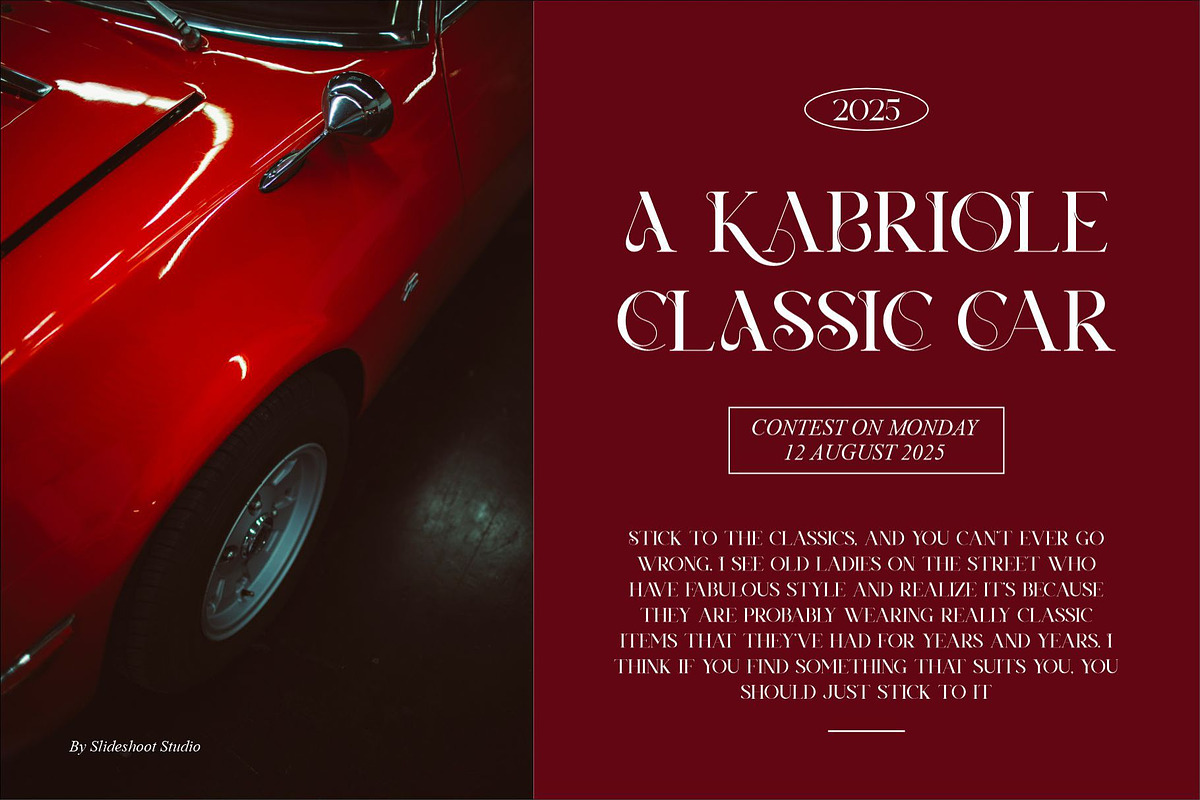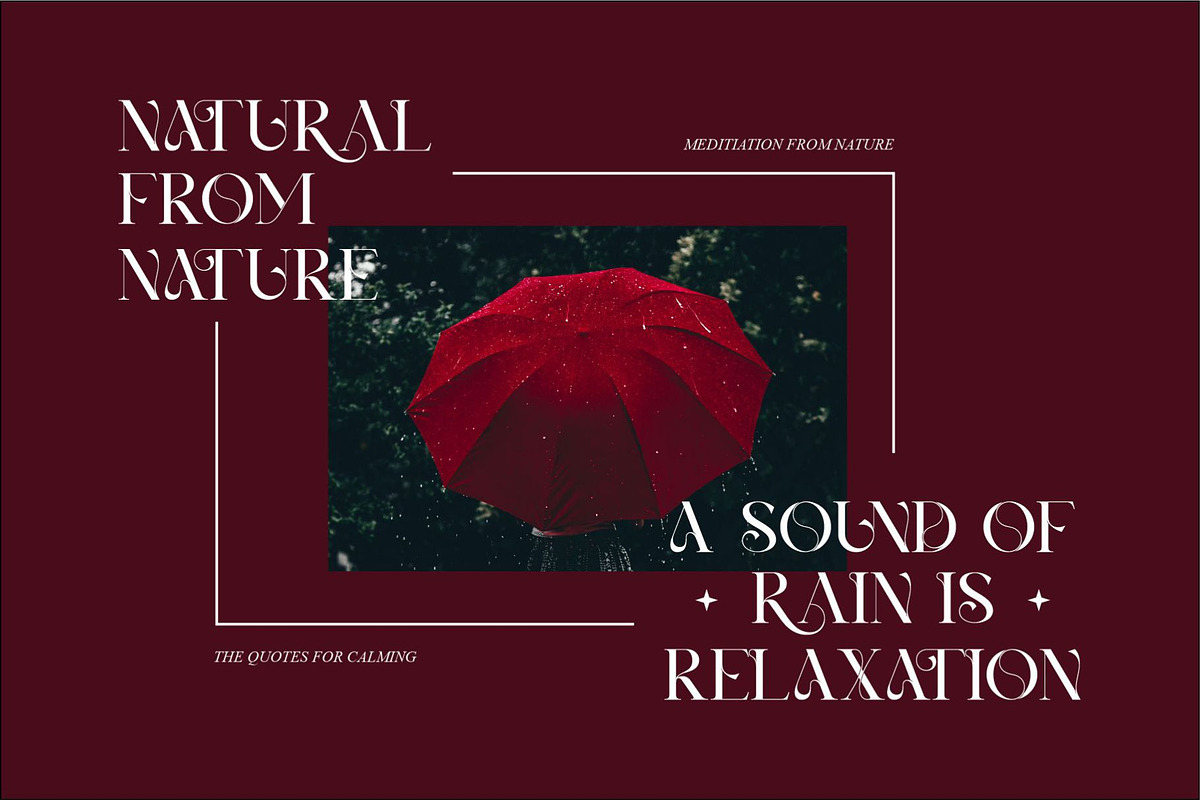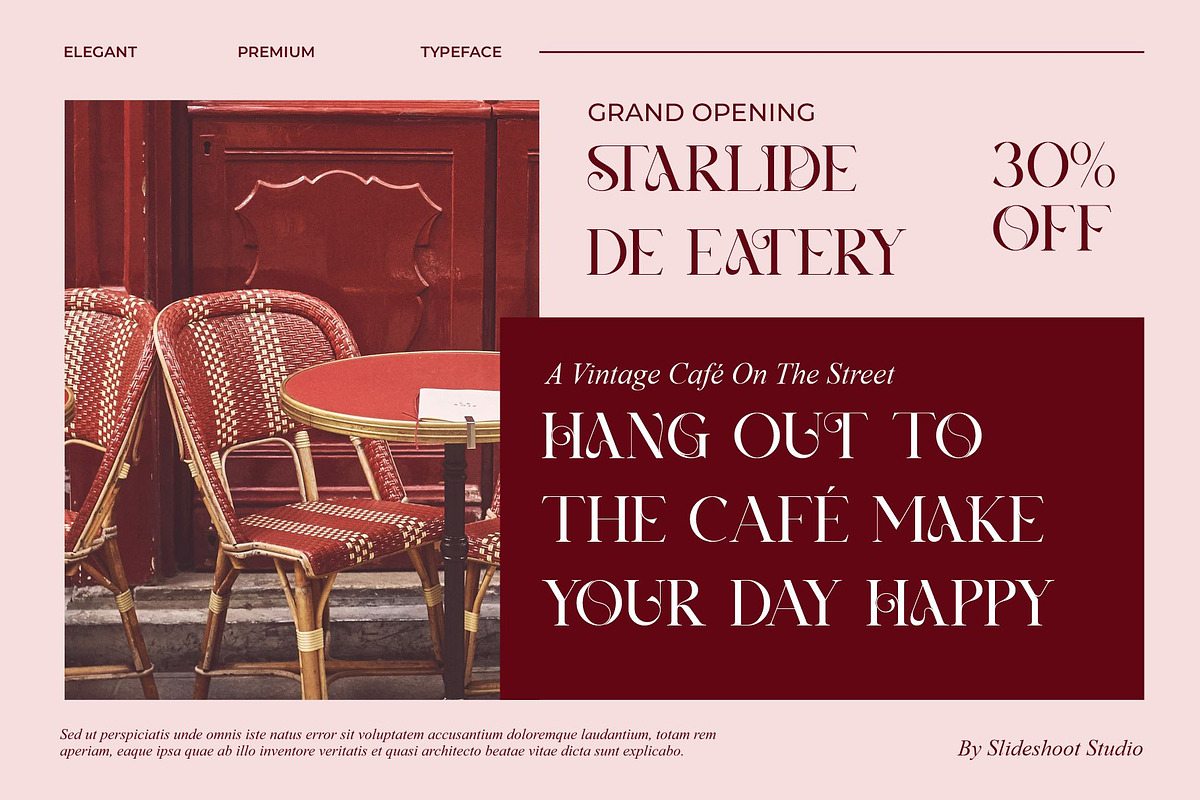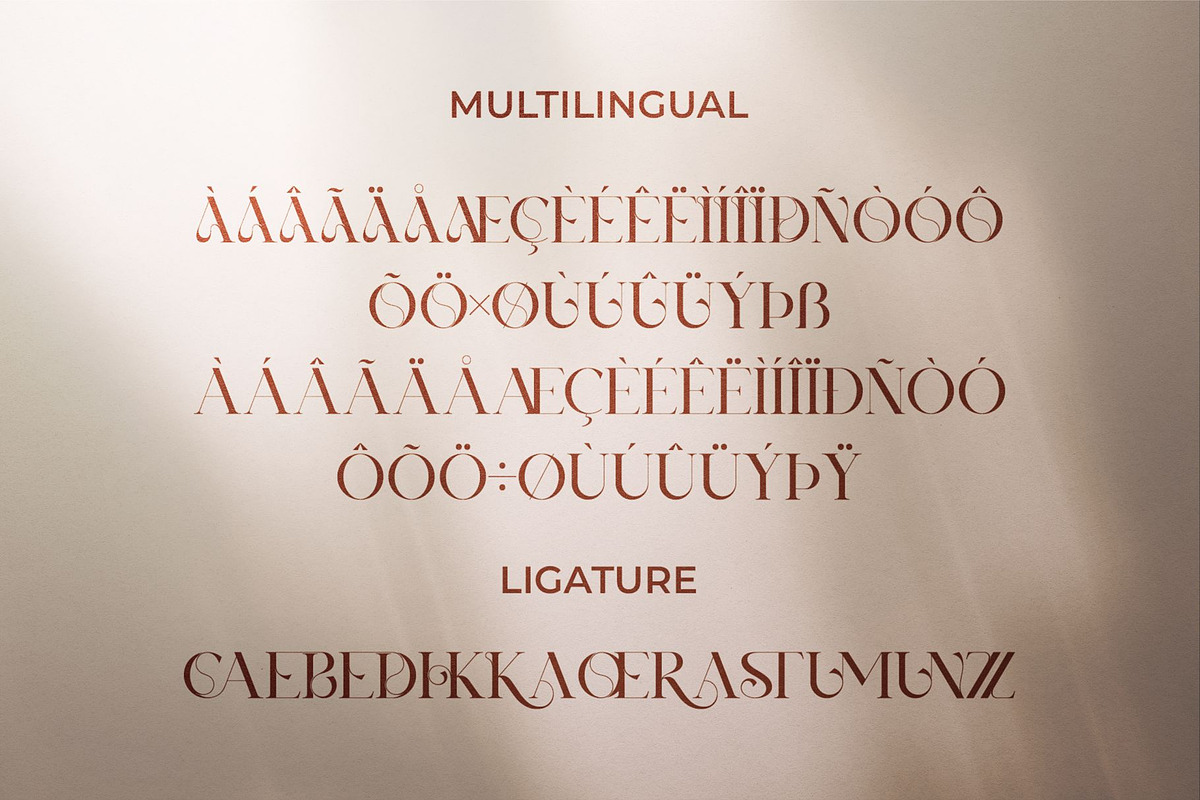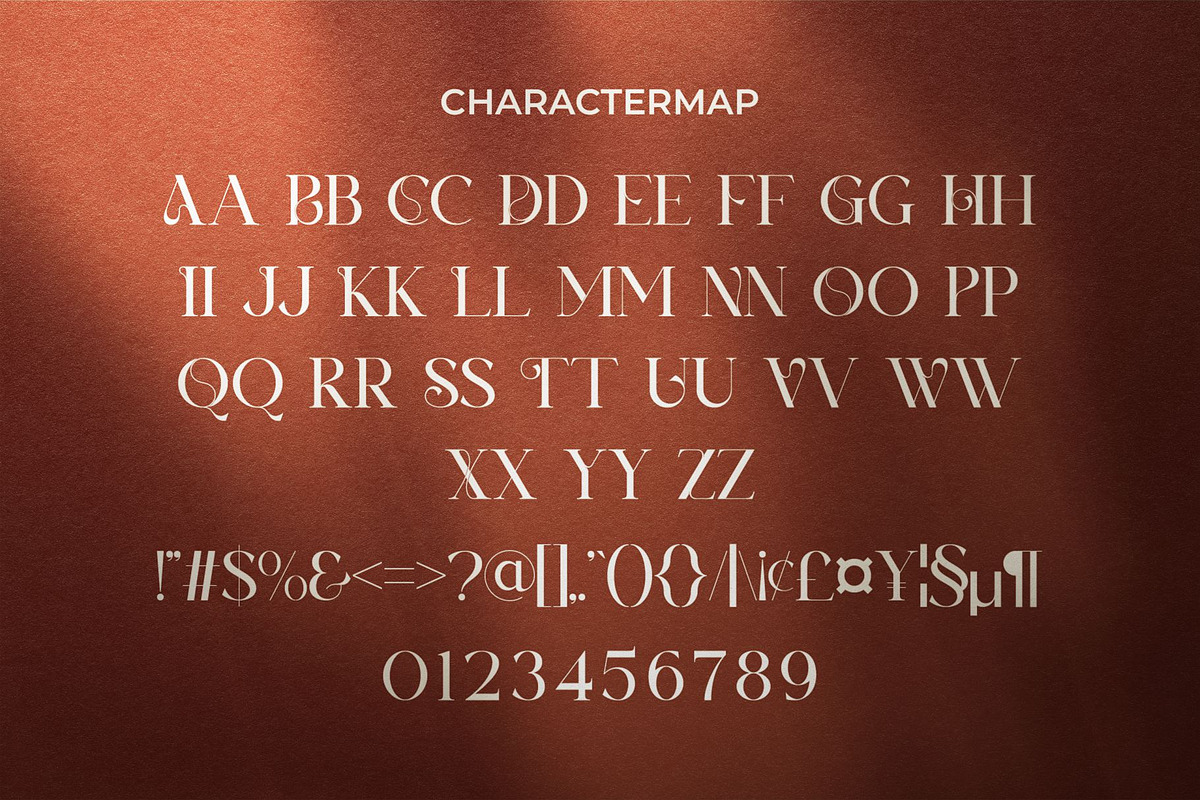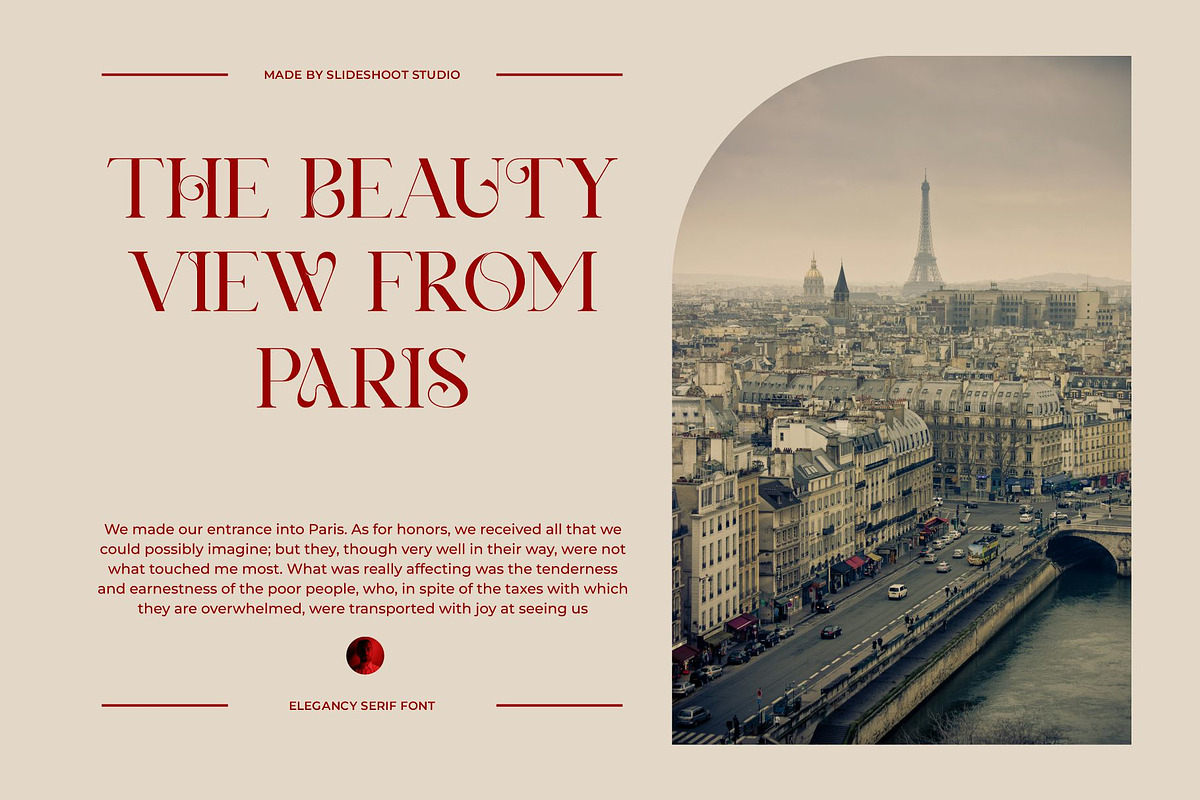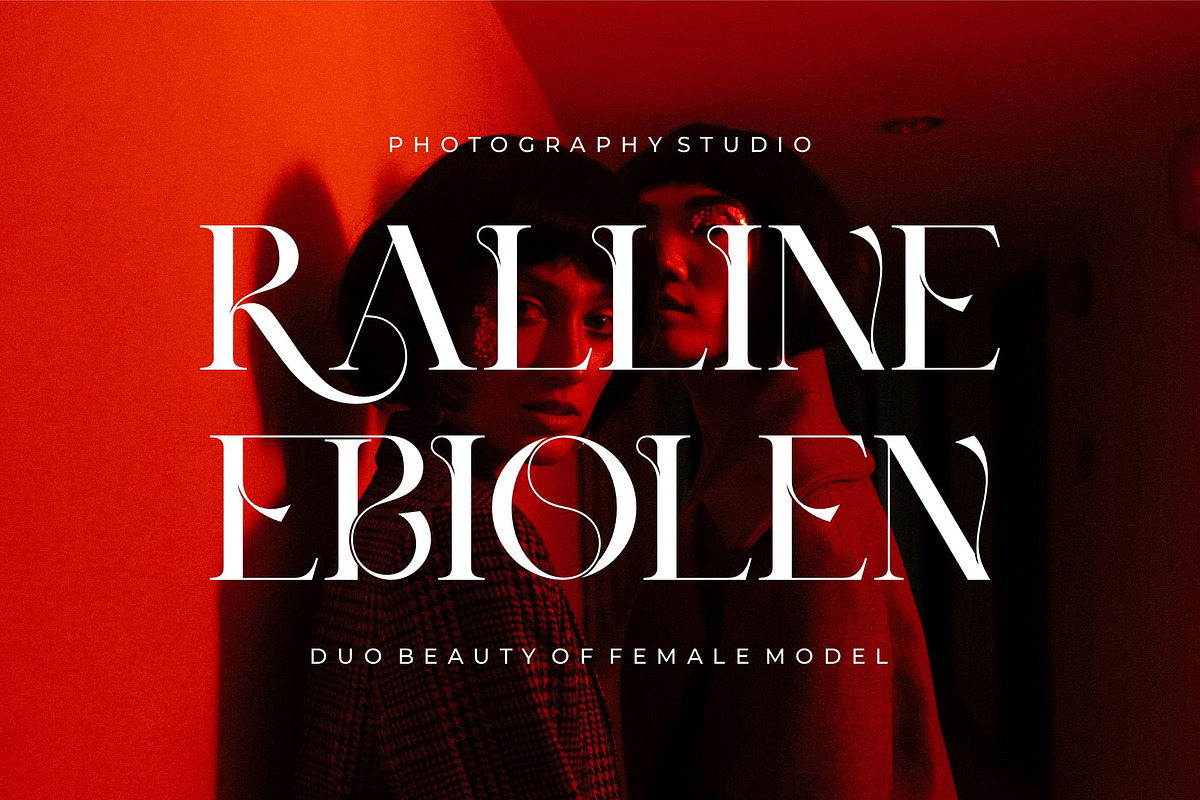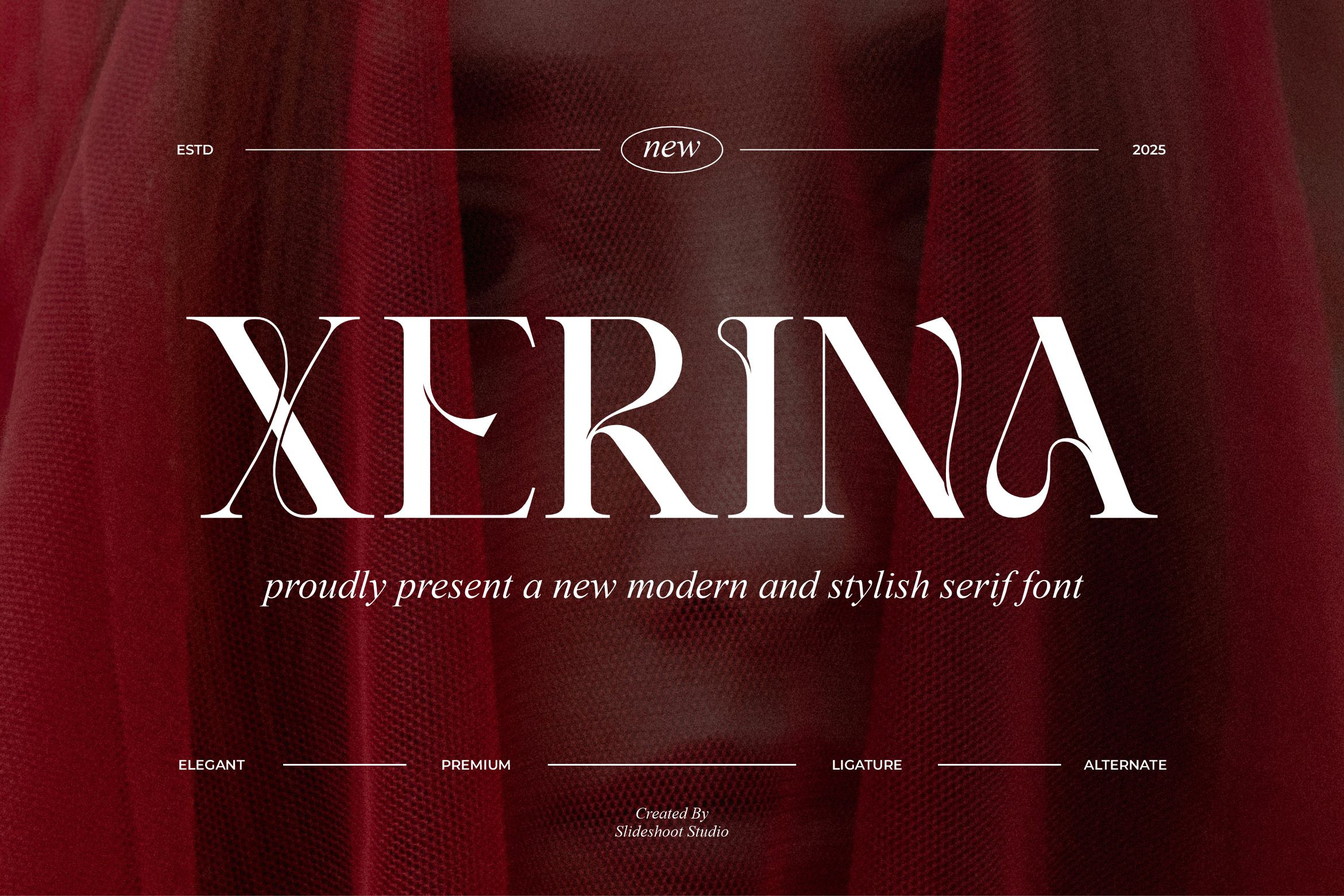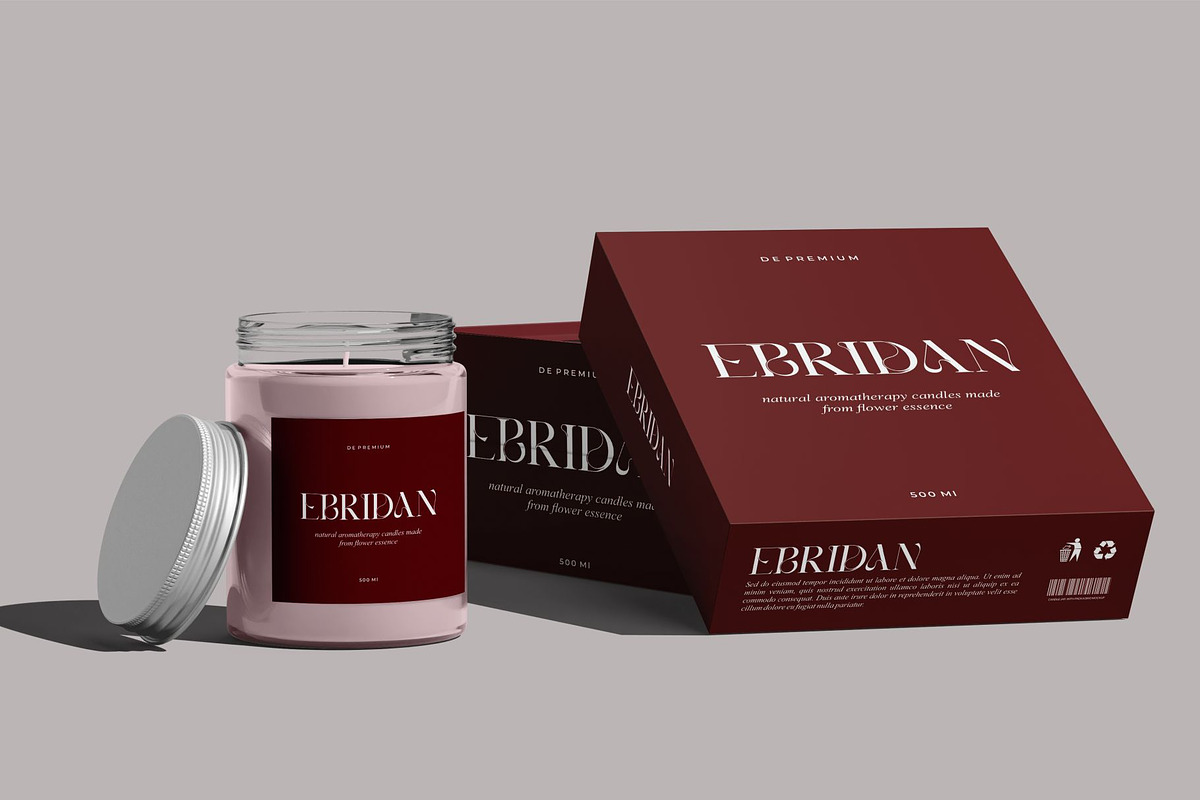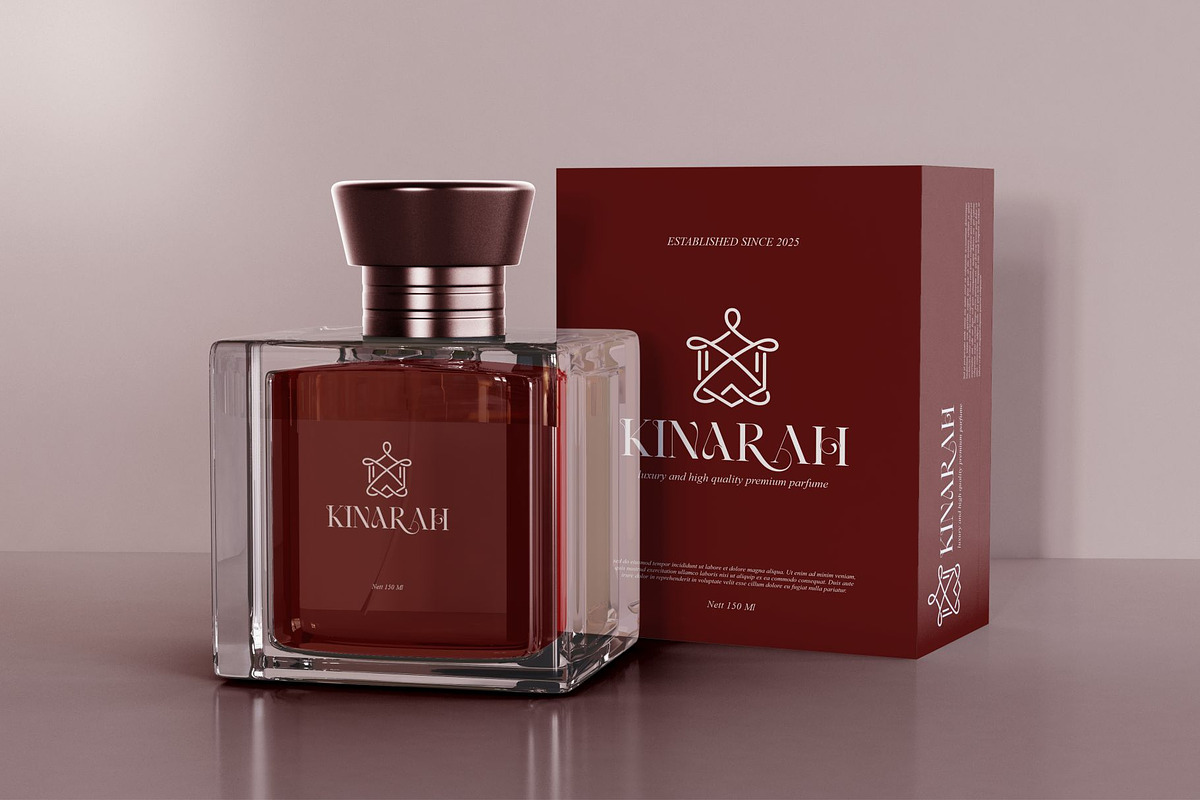
Xerina || Modern Serif Font
Xerina Serif is a elegant and classy allcaps font type for all branding and logo designs. This elegant and classy Serif font has a beautiful character. This font is suitable for invitation card designs, cool logos, movie titles, movie names, business cards, book titles, brand names, and various other designs. Xerina is a smooth serif font that exudes sophistication and the moment. Its stylish alterations and ligatures make this font a perfect partner for any project.